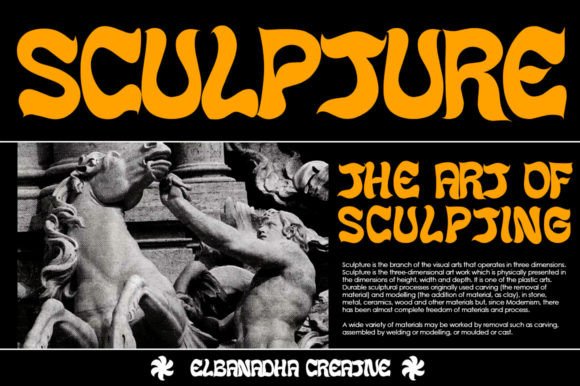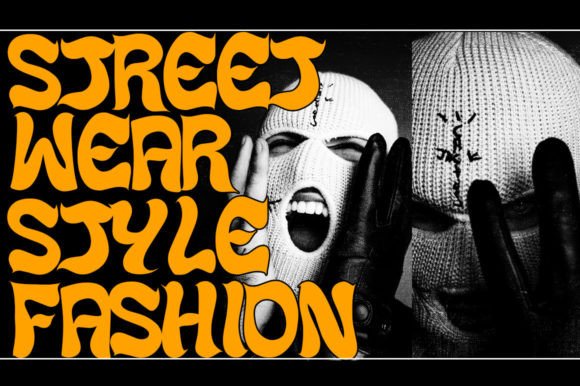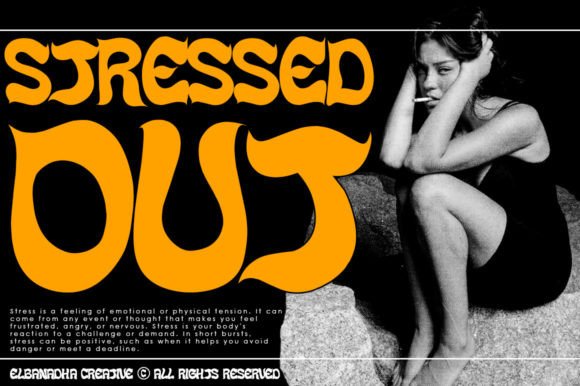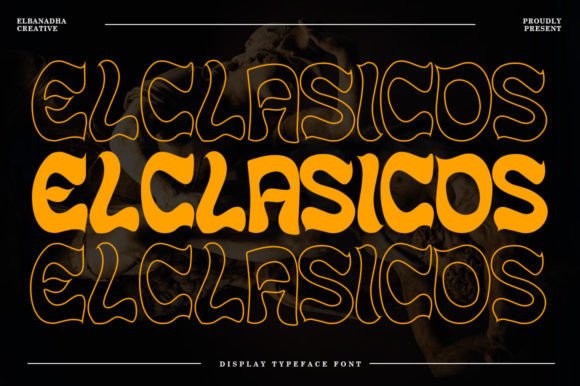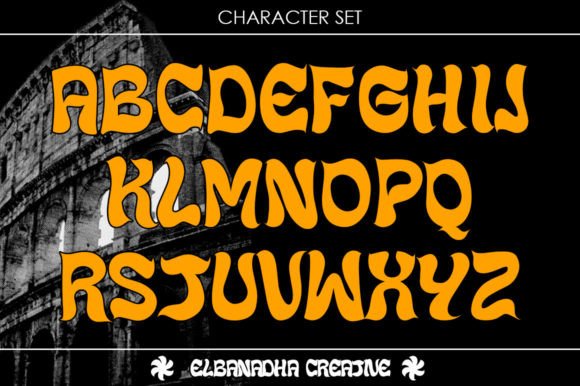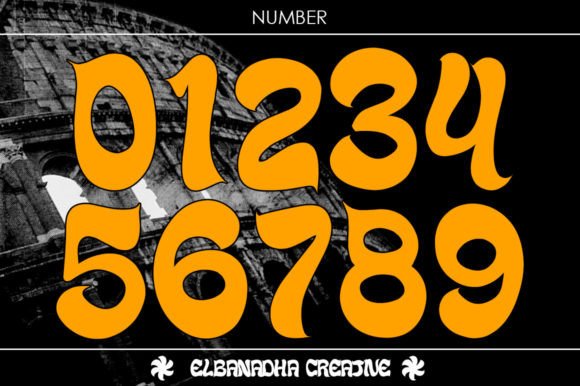
Introduction to Elclasico Font
Have you ever stumbled upon a design that makes you stop and think, “Wow, this is perfect!”? For designers, those moments of inspiration are what drive us to create something truly special. And that’s exactly what Elclasico Font is – a beautiful display typeface that’s perfect for any creative project.
Whether you’re working on a logo, branding project, or simply want to add a touch of elegance to your homeware designs, Elclasico Font is the ultimate design resource. Its high-quality design makes it perfect for product packaging, t-shirts, book covers, and more. With its transparent background, you can easily place it over any image or background, giving you complete creative control.
Key Features of Elclasico Font
- Includes a wide range of characters, including uppercase and lowercase letters, numbers, and special characters, making it a versatile design resource.
- Features a unique, elegant design style that can add a touch of sophistication to any creative project, from branding to typography.
Honest Review: Elclasico Font
As a designer, I’ve come across my fair share of fonts, but the Elclasico Font caught my eye. I decided to give it a try and see if it lives up to its promise. Here’s my honest review.
- High-quality design: The Elclasico Font is well-designed and visually appealing. It’s perfect for creative projects that require a touch of elegance.
- Limited customization options: While the font is beautiful, it’s not highly customizable. This might be a drawback for designers who want more control over their font.
- Not suitable for all projects: The Elclasico Font is best suited for creative projects that require a elegant and sophisticated look. It might not be the best choice for more casual or informal projects.
Overall, I’m impressed with the Elclasico Font. While it has some limitations, its high-quality design and transparent background make it a valuable resource for designers. If you’re looking for a beautiful font for your creative project, the Elclasico Font is definitely worth checking out.
Tips for Getting the Most Out of Elclasico Font
Use the Elclasico Font on a transparent background to create a seamless design. You can also use it in conjunction with other design elements to create a unique and creative project. Experiment with different font sizes and styles to find the perfect look for your design.
The Elclasico Font is suitable for a variety of design projects, including business cards, brochures, and website design. It is also a great resource for designers who want a high-quality, free download font for their creative projects.